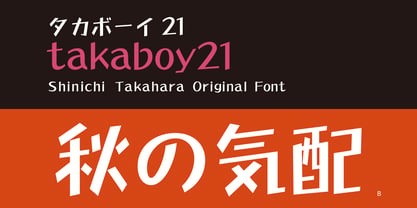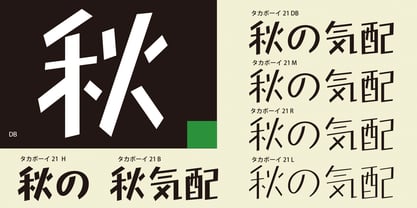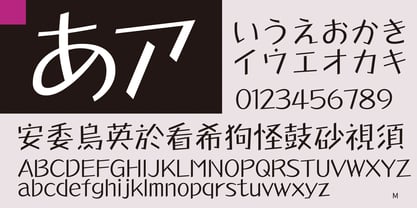
Takaboy21
The typeface is slightly right ascending with a handwritten feel, and all straight lines are used without using any curved lines. The cut angles of the lines as well as the square dots are distinctive, and the framework as a whole is methodical in design. It is a strong and dependable typeface that is highly pleasing to the eye. The “21” in the typeface name indicates a vertical to horizontal line ratio of 2:1.